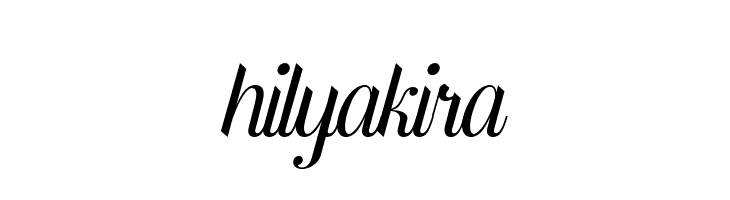
A stylish, elegant script font with flowing, connected characters.
A stylish cursive font with elegant, flowing strokes and seamless character connections.
Bold cursive script with a handwritten style.
A flowing, elegant script font with a modern calligraphic style.